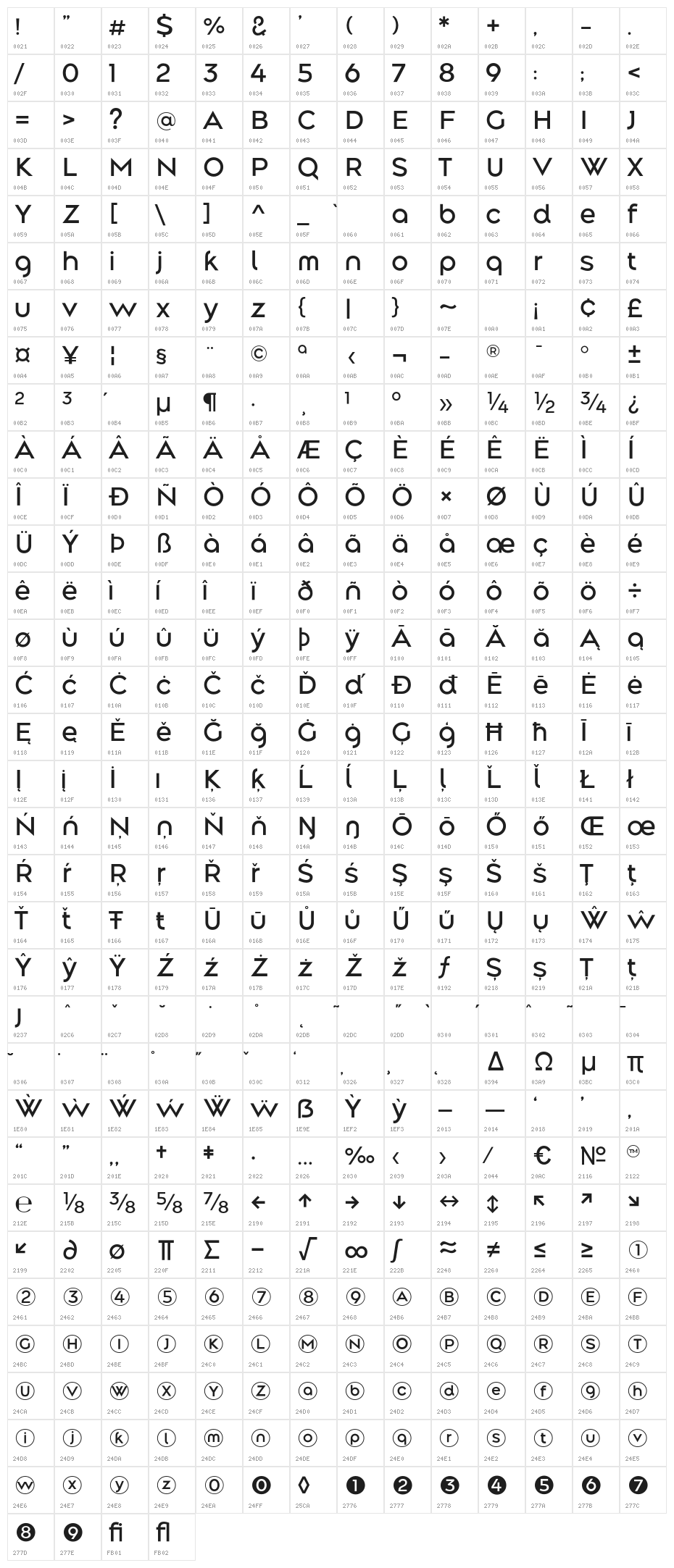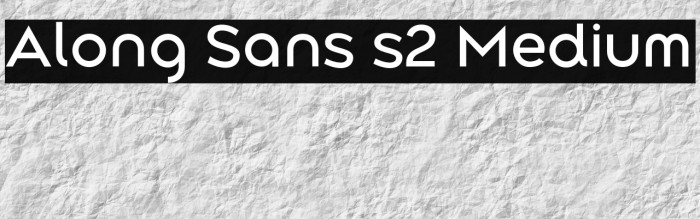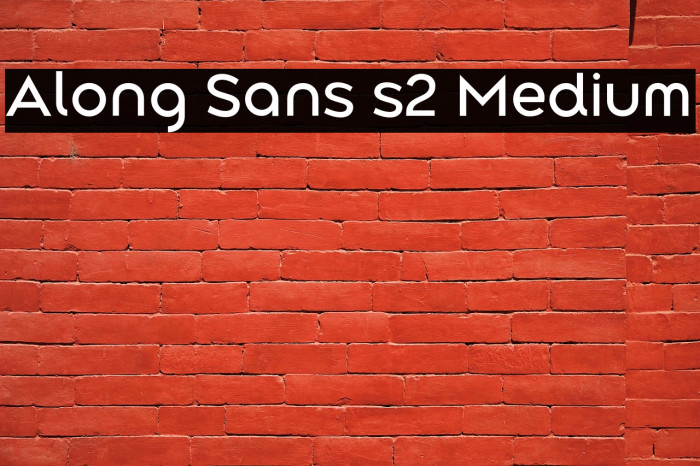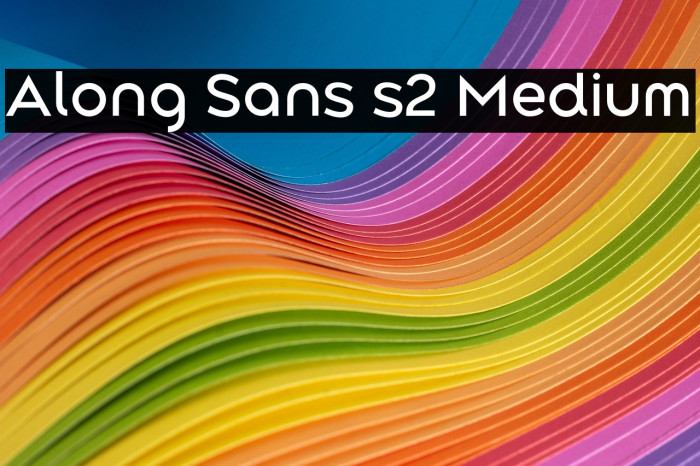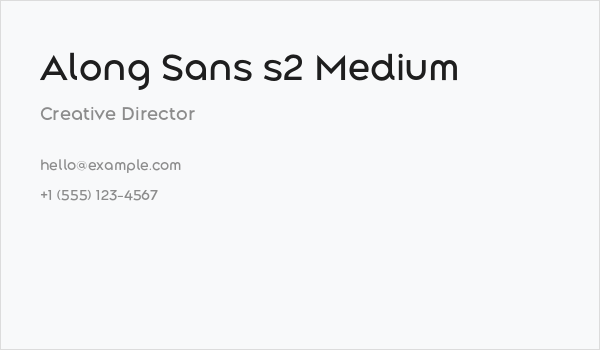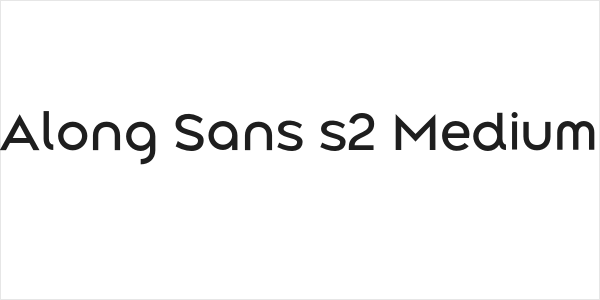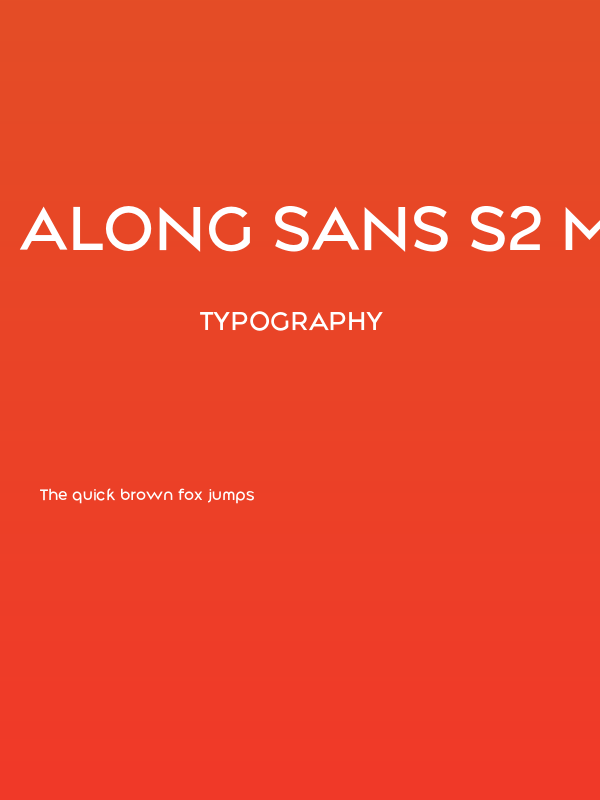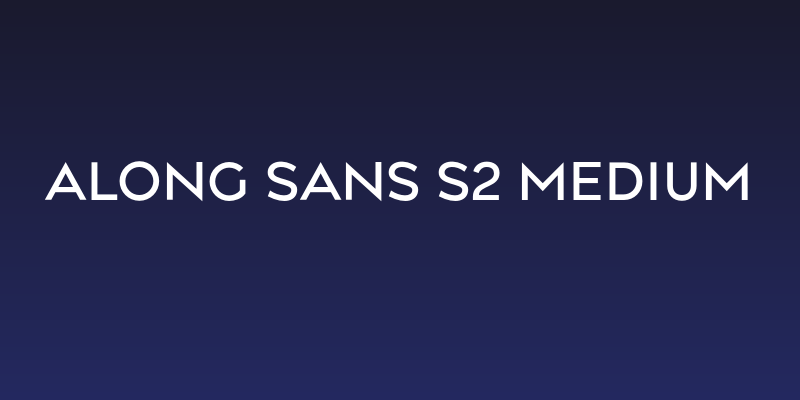
Along Sans s2 Medium Font
Along Sans s2 Medium Description
This font exhibits a clean and modern sans-serif style, characterized by its geometric shapes and uniform stroke widths. The uppercase letters are bold and assertive, with a consistent height that enhances readability. The lowercase letters maintain a similar geometric form, providing a harmonious balance between the two cases. Numbers are clear and distinct, ensuring legibility in various contexts. Special characters are well-defined, complementing the overall aesthetic. The font's simplicity and clarity make it versatile for a wide range of applications.